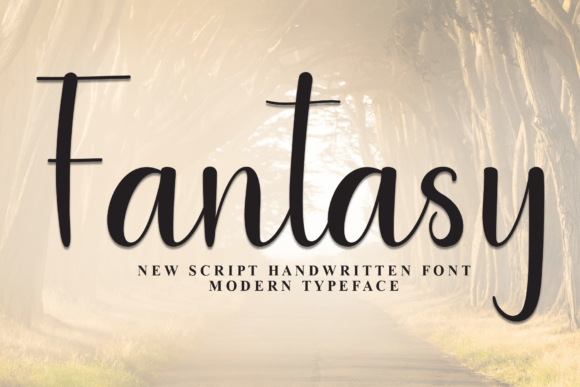
Fantasy Font: Elevate Your Designs with a Touch of Elegance and Whimsy
In the world of typography, fonts play a crucial role in conveying the tone and personality of a design. Among the myriad of font styles available, the Fantasy Font stands out for its unique blend of modern elegance and playful charm. This stylish handwritten script font is designed to bring a personal touch to various design projects, making it an excellent choice for creative endeavors. In this article, we will delve into the features, benefits, and applications of the Fantasy Font, exploring how it can elevate your designs and add a touch of sophistication and creativity.
The Essence of Fantasy Font
Fantasy Font is a meticulously crafted handwritten script font that strikes a perfect balance between modern elegance and whimsical playfulness. Its fluid strokes and charming curves are designed to evoke a sense of warmth and personality, making it an ideal choice for designs that require a personal touch. The font’s unique character lies in its ability to blend sophistication with a carefree spirit, allowing designers to create visually appealing and engaging content.
Key Features of Fantasy Font
- Fluid Strokes: The font features smooth, flowing strokes that contribute to its elegant and refined appearance.
- Charming Curves: The curves in Fantasy Font add a playful and whimsical touch, making it perfect for designs that require a bit of personality.
- Modern Elegance: Despite its playful nature, the font exudes a sense of modern sophistication, making it suitable for a wide range of design projects.
- Versatility: Fantasy Font can be used for various applications, including logos, packaging, invitations, and more.
Applications of Fantasy Font
The versatility of Fantasy Font makes it an excellent choice for a variety of design projects. Here are some of the key applications where this font truly shines:
1. Logos and Branding
Fantasy Font is ideal for creating unique and memorable logos that reflect a brand’s personality. Its elegant yet playful nature makes it suitable for businesses in various industries, from fashion and beauty to lifestyle and entertainment.
2. Packaging Design
Packaging design is all about creating a lasting impression. Fantasy Font can add a touch of sophistication and charm to product packaging, making it stand out on store shelves and attracting potential customers.
3. Invitations and Stationery
For weddings, parties, and other special events, Fantasy Font can be used to create beautiful and personalized invitations. Its elegant and whimsical nature makes it perfect for stationery designs that require a touch of class and personality.
4. Digital Content
In the digital realm, Fantasy Font can be used to create engaging content for websites, social media, and blogs. Its modern elegance and playful charm can help capture the audience’s attention and convey the message in a visually appealing way.
Benefits of Using Fantasy Font
Using Fantasy Font in your designs comes with several benefits that can enhance the overall quality and impact of your work:
1. Adds Warmth and Sophistication
Fantasy Font brings a sense of warmth and sophistication to any design, making it more engaging and appealing to the audience.
2. Enhances Creativity
The playful and whimsical nature of Fantasy Font can inspire creativity and add a unique touch to your designs, setting them apart from the rest.
3. Versatile and Adaptable
Fantasy Font is highly versatile and can be adapted to various design projects and styles, making it a valuable addition to any designer’s toolkit.
4. Easy to Read and Understand
Despite its elegant and cursive nature, Fantasy Font remains clear and easy to read, ensuring that the message is conveyed effectively.
Tips for Using Fantasy Font Effectively
To make the most of Fantasy Font, consider the following tips:
1. Pair with Complementary Fonts
Pair Fantasy Font with complementary fonts to create visual interest and hierarchy in your designs.
2. Use Appropriate Sizes
Ensure that the font size is appropriate for the design and medium. For example, larger sizes for headings and smaller sizes for body text.
3. Experiment with Colors
Don’t be afraid to experiment with different colors to find the perfect match for your design. Fantasy Font looks great in both bold and subtle color schemes.
4. Maintain Readability
While using Fantasy Font, ensure that it remains readable, especially for longer texts. Adjust the font size and spacing as needed.
Fantasy Font is a stylish handwritten script font that offers a perfect blend of modern elegance and playful charm. Its fluid strokes and charming curves make it an excellent choice for various design projects, including logos, packaging, invitations, and digital content. By incorporating Fantasy Font into your designs, you can add warmth, sophistication, and creativity, making your work more engaging and visually appealing. Whether you’re a professional designer or a DIY enthusiast, Fantasy Font is a valuable addition to your typographic toolkit.